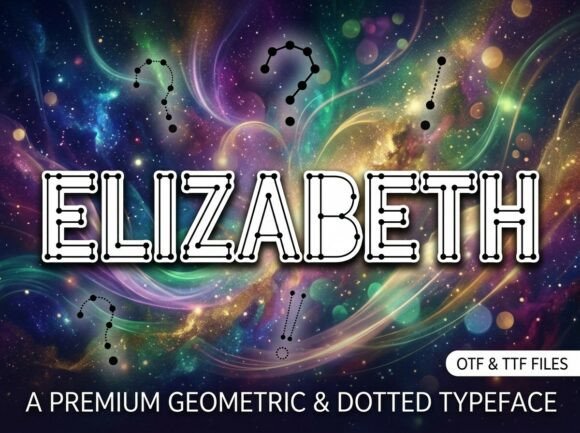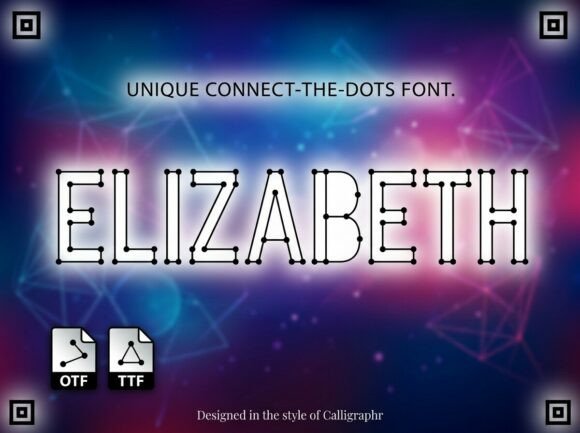
Introducing Elizabeth Font: A Stunning Decorative Display Font
Are you tired of using the same old fonts for your designs? Do you want to add a touch of elegance and sophistication to your projects? Look no further than Elizabeth Font, a beautiful decorative display font that’s sure to turn heads. In this article, we’ll take a closer look at what makes Elizabeth Font so special and why it’s a must-have for designers and crafters.
A Font that’s Truly One-of-a-Kind
Elizabeth Font is a stunning decorative display font designed to be the center of attention. With its unique artistic elements and strong visual personality, this font is perfect for creators who want to break away from the ordinary. Whether you’re working on a bold headline, artistic logo, or creative packaging, Elizabeth Font is versatile enough to make a lasting impression while maintaining a professional and polished finish.
Before you buy Elizabeth Font, it’s essential to note that this font is an ALL-CAPS (Uppercase Only) display typeface. This means that it does not include lowercase letters. Elizabeth Font is specifically designed for high-impact headlines, logos, and decorative initials where every letter is a work of art.
Elizabeth Font is perfect for designers and crafters who want to add a touch of elegance and sophistication to their projects. Here are some ideas for using Elizabeth Font:
- Headlines and Titles – Use Elizabeth Font to create eye-catching headlines and titles for your blog posts, articles, or social media graphics.
- Logos and Branding – Create a stunning logo for your business or brand using Elizabeth Font. Its unique artistic elements and strong visual personality make it perfect for creating a memorable brand identity.
- Packaging and Product Design – Use Elizabeth Font to create eye-catching packaging and product designs that stand out on store shelves.
- Invitations and Stationery – Add a touch of elegance to your invitations, greeting cards, and stationery with Elizabeth Font.
Why Choose Elizabeth Font?
So, why choose Elizabeth Font over other decorative display fonts? Here are just a few reasons:
- Unique and Eye-Catching – Elizabeth Font is truly one-of-a-kind, with its unique artistic elements and strong visual personality.
- Versatile – Elizabeth Font is versatile enough for use in a variety of design projects, from bold headlines to artistic logos and creative packaging.
- Professional and Polished – Despite its decorative nature, Elizabeth Font maintains a professional and polished finish that’s perfect for high-end designs.